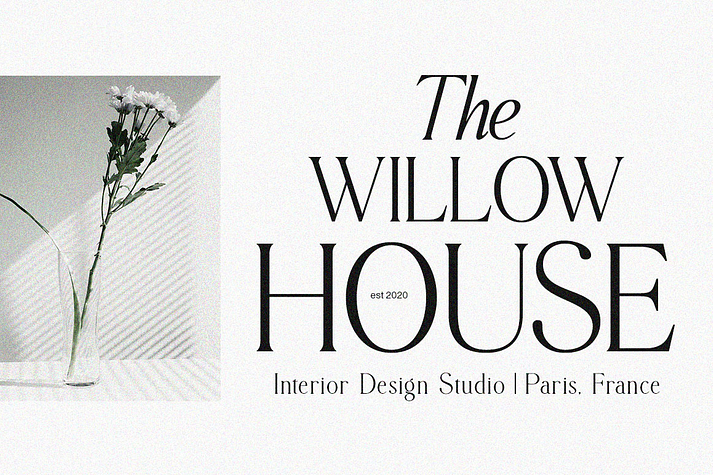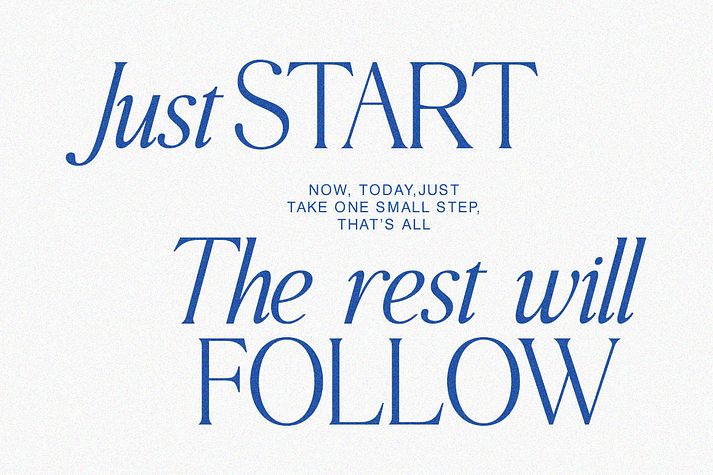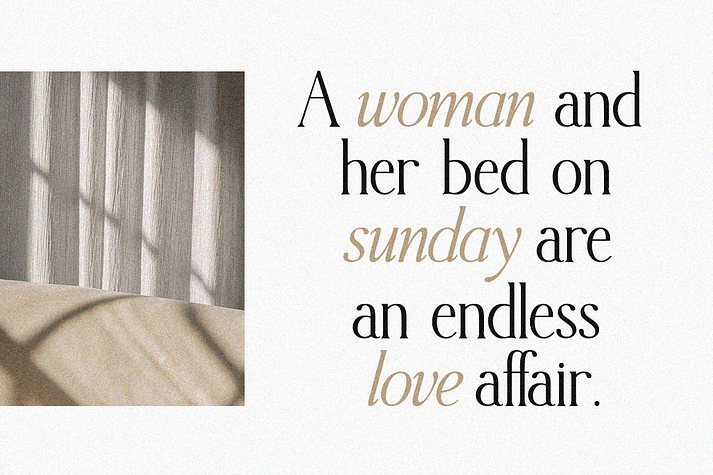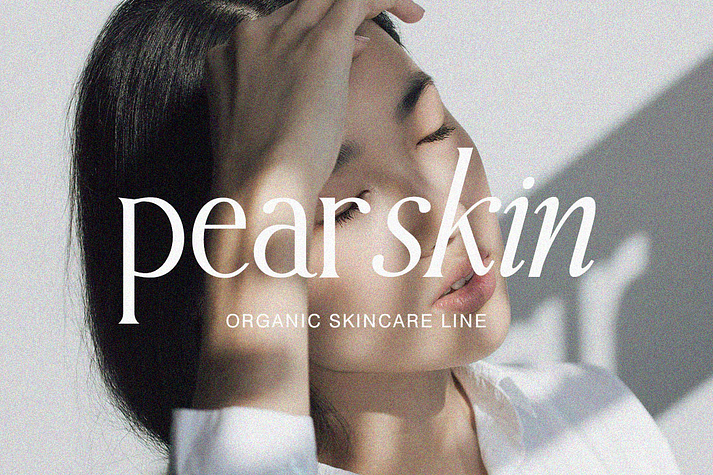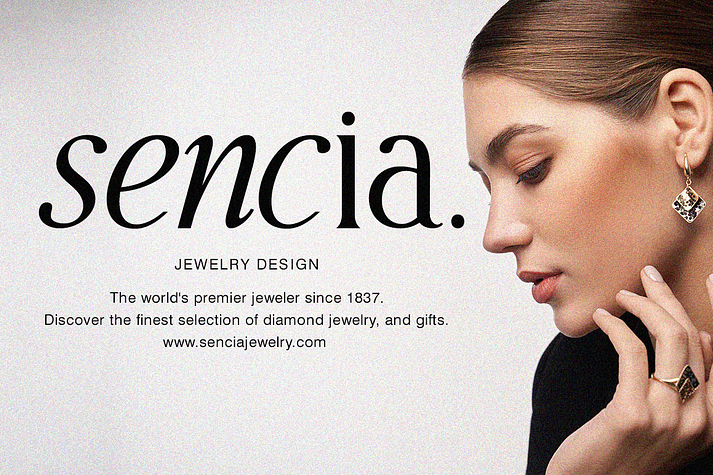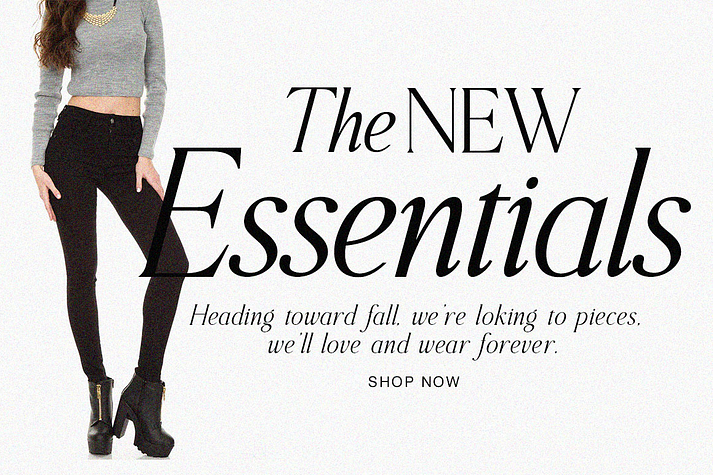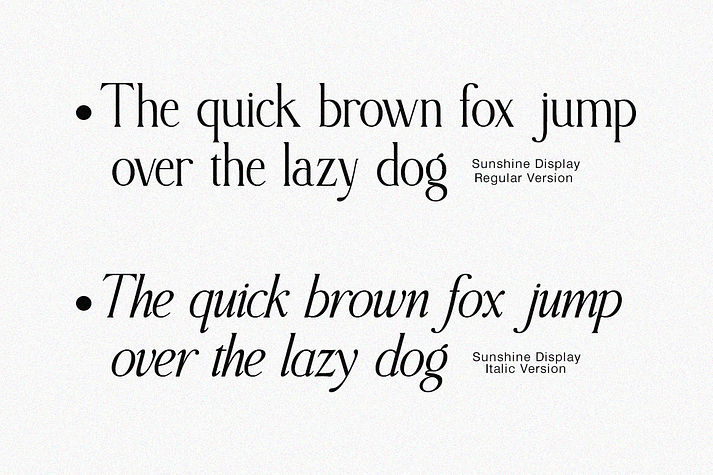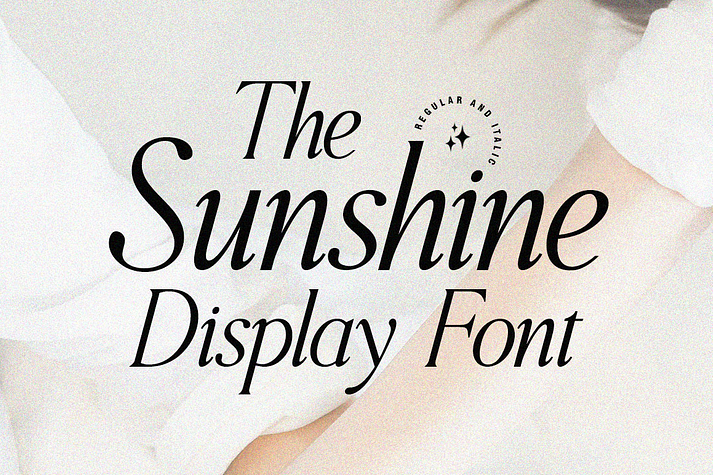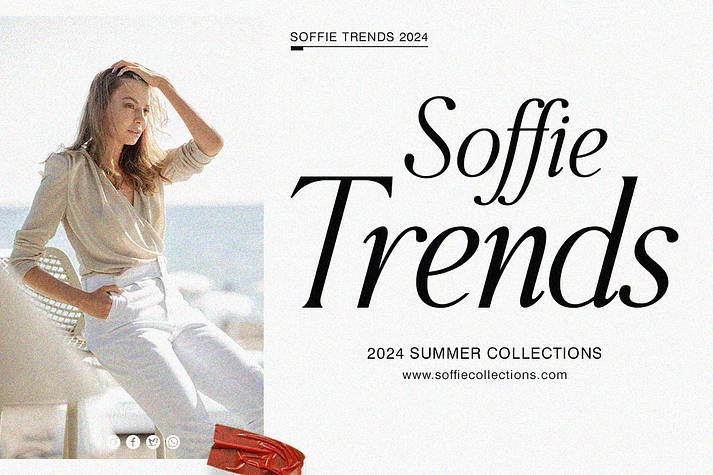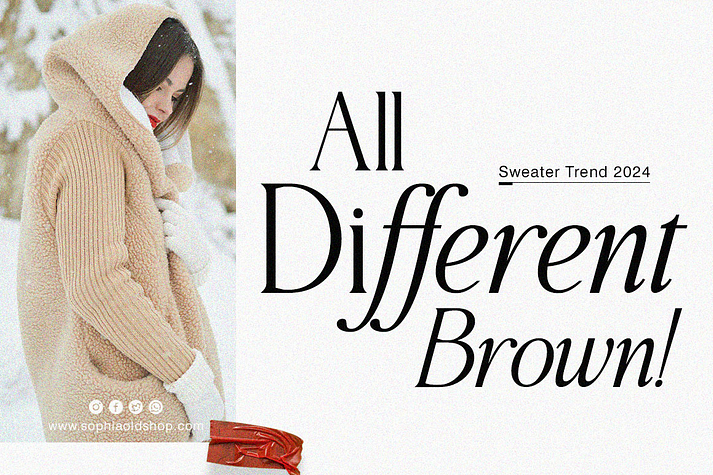
The Sunshine Display
The Sunshine Display is a serif font family. This typeface has two styles and was published by Lucky Type.
Let me introduce my newest font The Sunshine Display. The Sunshine is the latest serif combination font that is elegant and beautiful. Beautiful plain serifs combined with slanted serifs are the main attraction of this font. Very suitable for application in various formal forms such as logos, invitations, labels, fashion, restaurant menus, wedding invitations, make up, stationery, novels, magazines, books, packaging, labels or all kinds of other purposes.